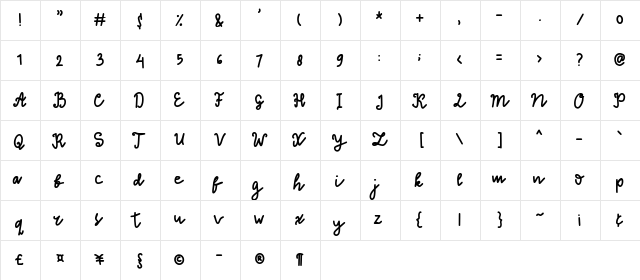
Thinna Bell Regular
Design Context for Thinna Bell Typeface
Thinna Bell is a composed and adaptable typeface that performs quietly and consistently across a wide range of design contexts. Its slender proportions lend an understated elegance to any composition.